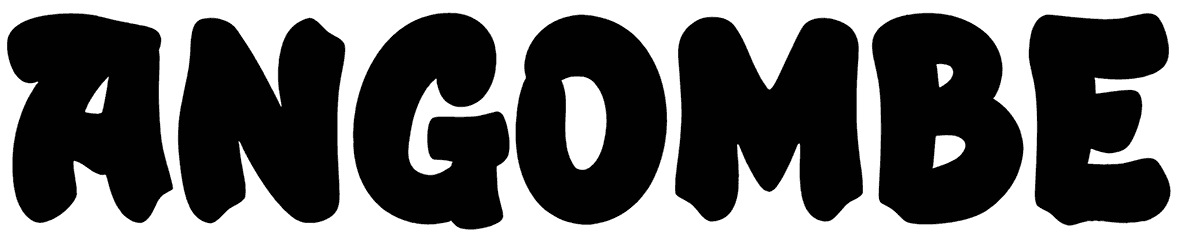
Angombe Font
Try using the graffiti font Angombe, which, despite lacking lowercase letters and numbers, may give off a more relaxed and casual vibe. Its pleasant tune makes it suitable for use in flyer titles, logotypes, product packaging, and other applications.